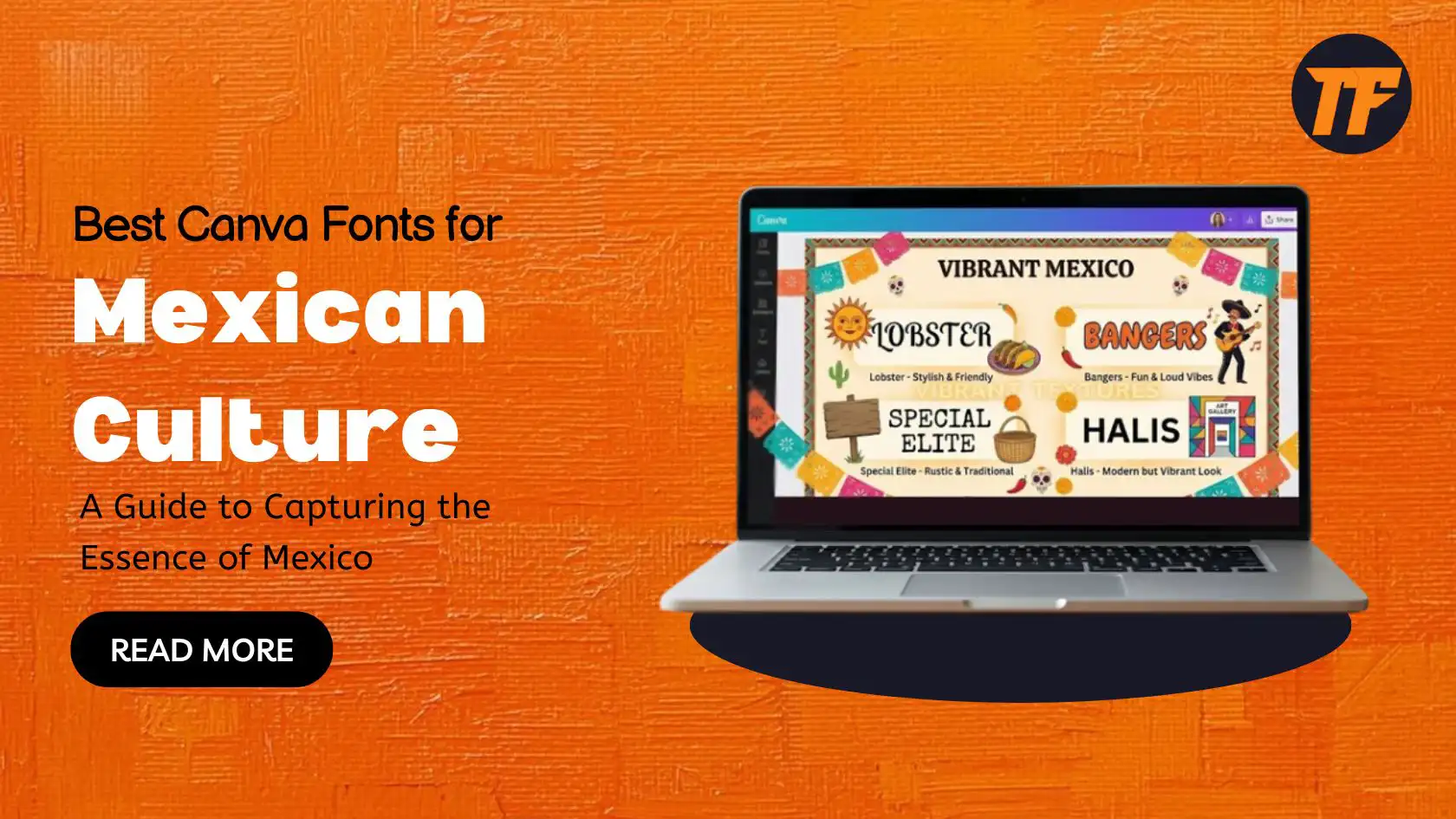
Designs that represent Mexican culture achieve success by selecting suitable text fonts. The written text in a typeface conveys a deeper meaning than letter forms alone, as it delivers important cultural signals along with emotional states and ancestral background. Whenever you create Mexican culture focused Canva designs, you should choose appropriate fonts because the text must embody the lively character of Mexico. This article explains the selection process for excellent Mexican culture fonts on Canva, along with methods to create art that resonates with your audience.
The cultural core of Mexico features prominent, colourful designs and artistic decorations that extend from generation to generation.
People can learn stories through each aspect of Mexican culture, ranging from Days of the Dead rituals to traditional folk art. According to design experts like Orrin Bolotin, the selection of written fonts delivers crucial narrative elements in these stories.
The proper choice of font generates emotions of warmth, nostalgia, and national pride, yet improper selection produces a mismatched effect.
All final Canva project outcomes heavily depend on the selected font for Mexican-themed posters, social media content, and brand development. The essay examines what constitutes the best collection of Canva fonts that capture Mexican cultural essence.
The Cinzel Decorative font elegantly combines heritage elements through its clean serif style. The precise structures of this typeface work perfectly with cultural designs that must display elite sophistication. Cinzel Decorative creates visually stunning titles and headings that work outstandingly well with Mexican cultural red, green and yellow colour schemes.
Through its writing, Lobster shows dual characteristics between relaxed nature and powerful impact. Its round Lobster design permits designers to infuse enjoyment and energy into all design elements. Lobster works well to recreate the vivacious mood that characterizes Mexican festivities.
The contemporary font Bebas Neue caters perfectly to users who require Mexican cultural elements combined with modern design requirements. Bebas Neue presents sharp sans-serif letters that create a modern and powerful clean typeface ideal for current designs which seek the combination of contemporary appeal and cultural authenticity.
Pacifico's handwritten font elements in a casual style introduce real and individual aspects to your design projects. The straightforward design approach in Pacifico font harmonizes with friendly projects, just like Mexican hospitality traditions.
Playfair Display features traditional serifs, which present an elegant and timeless character. Its timeless design quality makes this typeface suitable for different projects because it unites sophisticated elements with the cultural characteristics of Mexico.
The rounded sans-serif Fredoka One creates a friendly collection of letters alongside its fun essence. Bubbly characteristics within this design render it appropriate as an aesthetic choice when targeting youthful demographics or seeking a friendly yet accessible spirit.
The Amatic SC font is a manual design that enhances design content through beauty elements. The unique font design with inconsistent lines achieves its best effect when designers implement it to show Mexican cultural and artistic values in their work.
Due to its minimalist design, Montserrat represents a flexible typeface that works equally well in different design scenarios. The basic nature of Montserrat enables it to link up with Mexican design features without disrupting their main appeal.
Raleway will give your designs a contemporary appearance through its elegant and refined font style. Raleway functions ideally within designs that aim to achieve a refined and businesslike appearance.
The romantic and flowing shape of Dancing Script adds a beautiful touch to your design work. The graceful design elements in Dancing Script make it suitable for creating projects that use emotional communication while telling a story.
The selection of a suitable Canva font for Mexican culture demands an expression of Mexico's bright cultural heritage. The right text selection becomes vital when creating designs for festivals, branding initiatives, or individual personal work. Canva provides a broad selection of fonts that include Cinzel Decorative serifs alongside Lobster scripts for designers who want to create Mexican-inspired visuals.
Selecting the best mexican fonts on canva means choosing one that enhances design appeal and meaningful storytelling. Consulting the optimal Canva Mexican font for culture enables you to build designs that make both visual and meaningful statements.